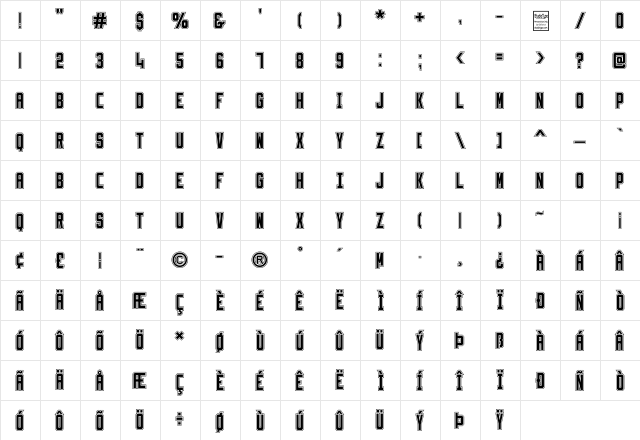
Slimfit College Regular
| Foundry | StudioTypo |
| Designer | Mehmet Abac |
Design Context for Slimfit College Typeface
Slimfit College brings high-energy athletic personality to the page — its confident, muscular forms are built for impact.
A natural choice for gym brands, fantasy sports, jersey lettering, and action-driven headlines.
Font Pairing: Use alongside a condensed or geometric sans for supporting copy — keep the pairing bold, functional, and free of ornament.
Pro Tip: Use Slimfit College in all-caps headlines where its athletic energy can fully express itself. Pair with a solid, simple sans for supporting text.